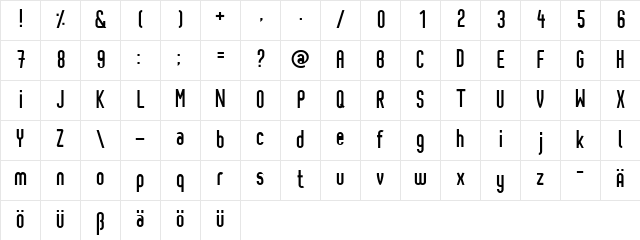
Pixochrome Regular Free Font
Pixochrome Regular
Design Context for Pixochrome
Pixochrome is a composed and adaptable typeface that performs quietly and consistently across a wide range of design contexts.